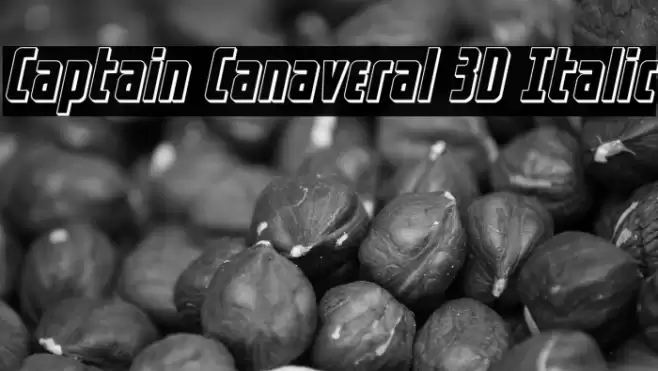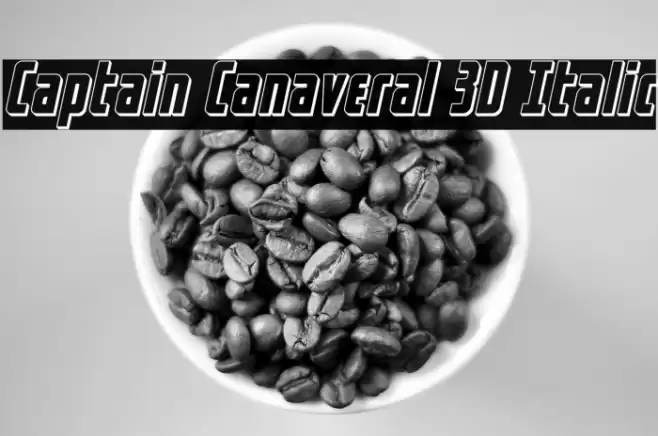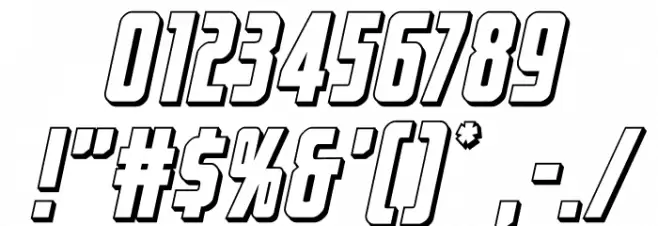
Captain Canaveral 3D Italic Font
Captain Canaveral 3D Italic Description
This font features a bold, three-dimensional design with a distinct italic slant, giving it a dynamic and futuristic appearance. The characters are outlined, creating a sense of depth and movement. The uppercase and lowercase letters maintain a consistent style, with sharp angles and clean lines that enhance readability while adding a modern edge. The numerals and special characters are designed to match the overall aesthetic, ensuring uniformity across all text elements. This font's unique style makes it stand out, making it suitable for projects that require a bold and eye-catching typeface.
A bold, 3D italic font with a modern, dynamic style from Uncategorized fonts.
- Proposed Projects: Ideal for use in posters, video game titles, sci-fi themed projects, and branding materials that require a futuristic touch.